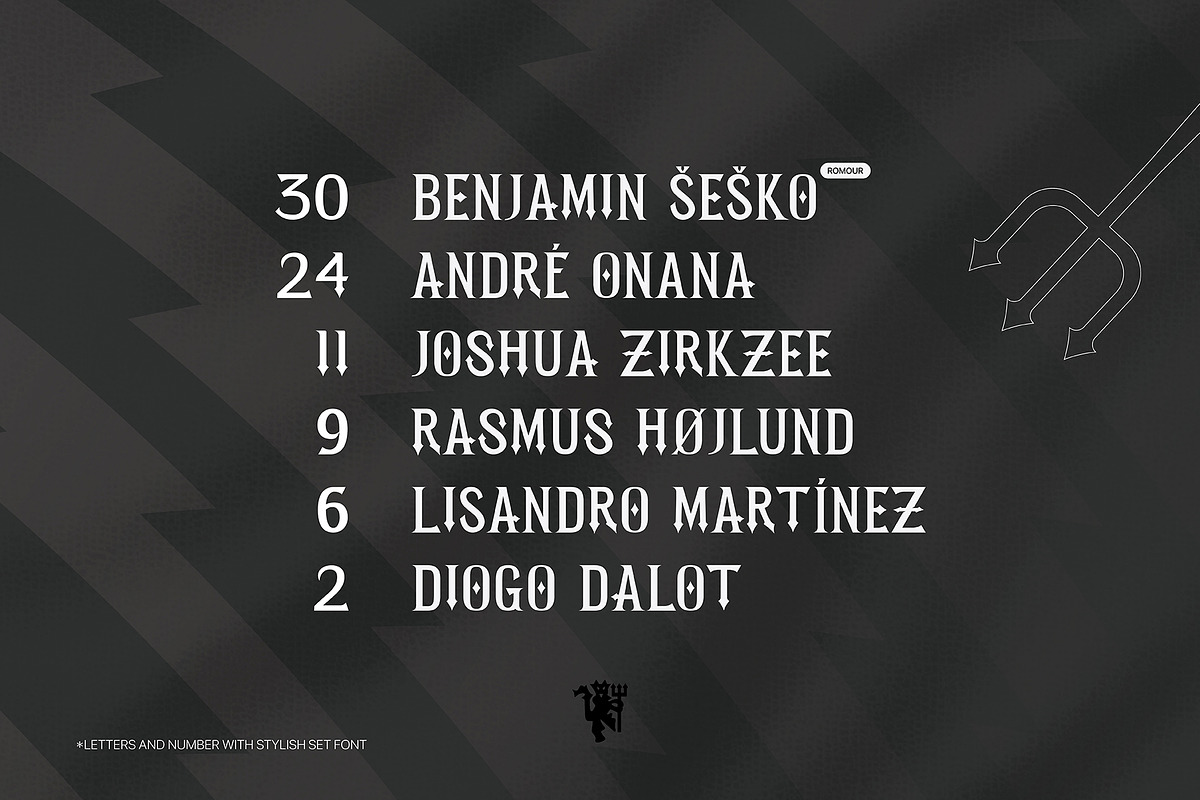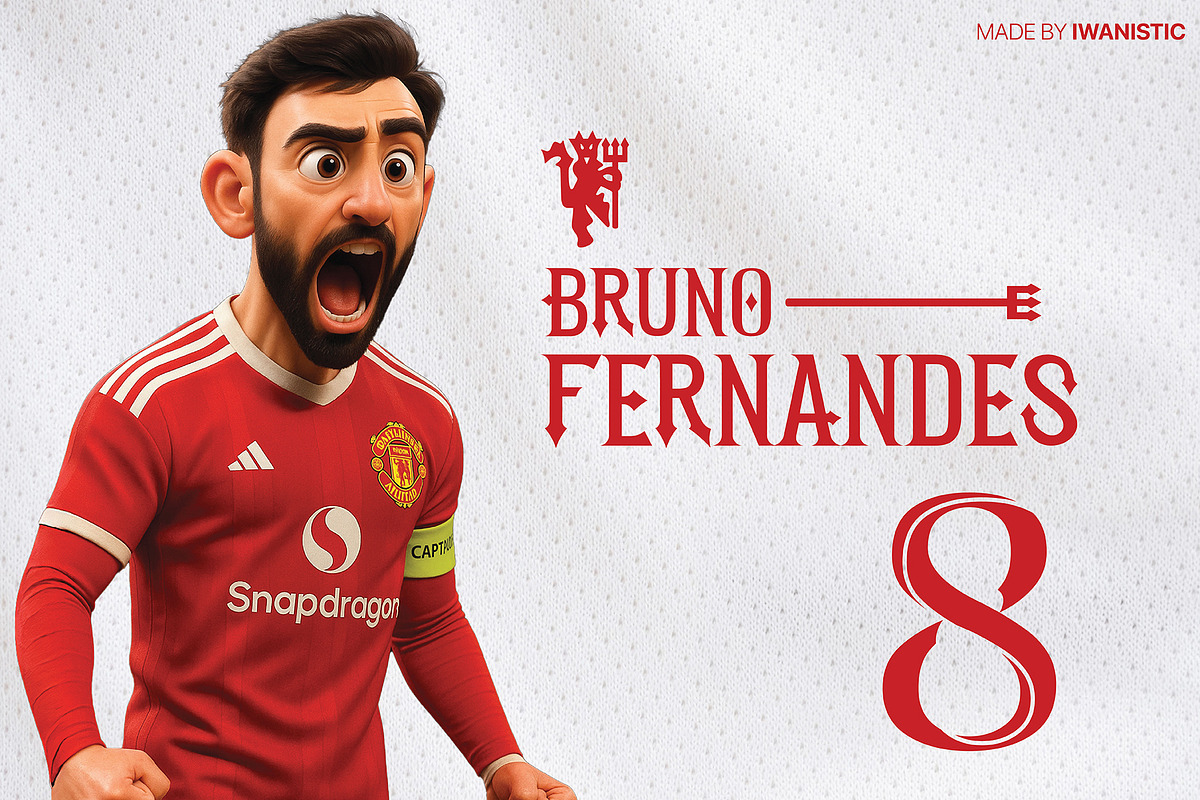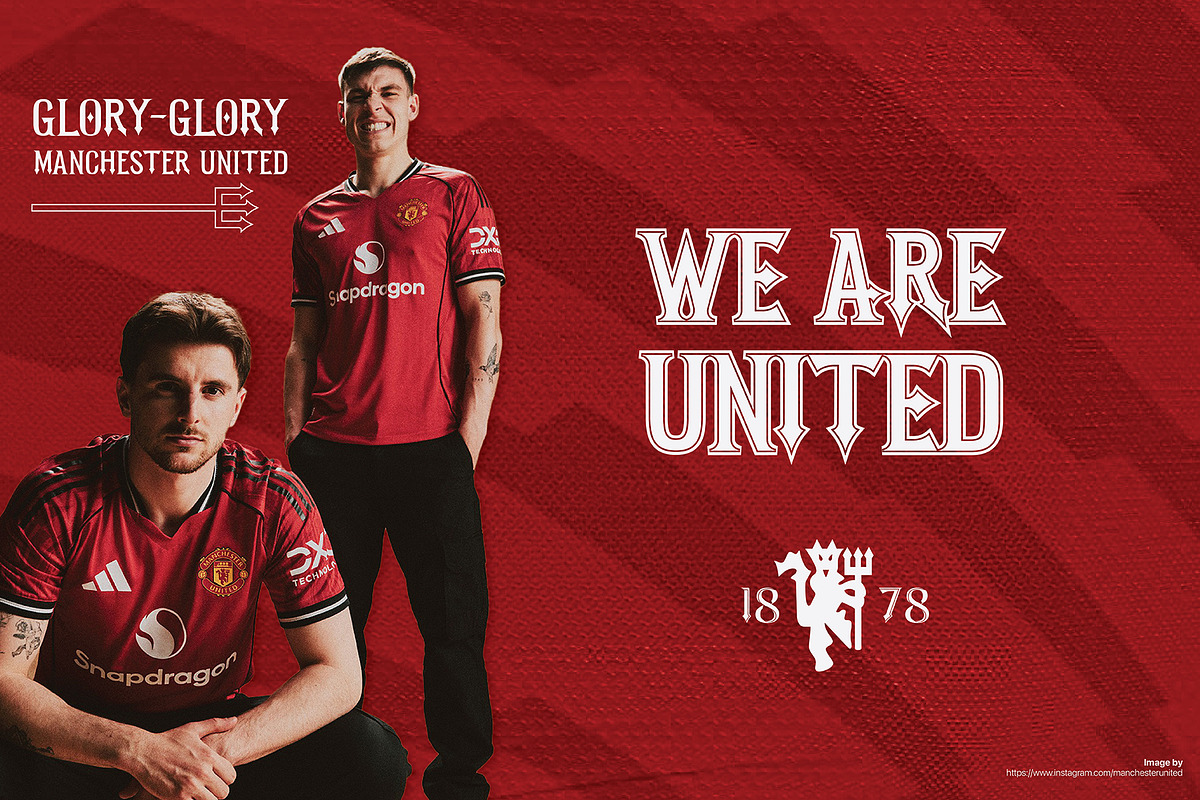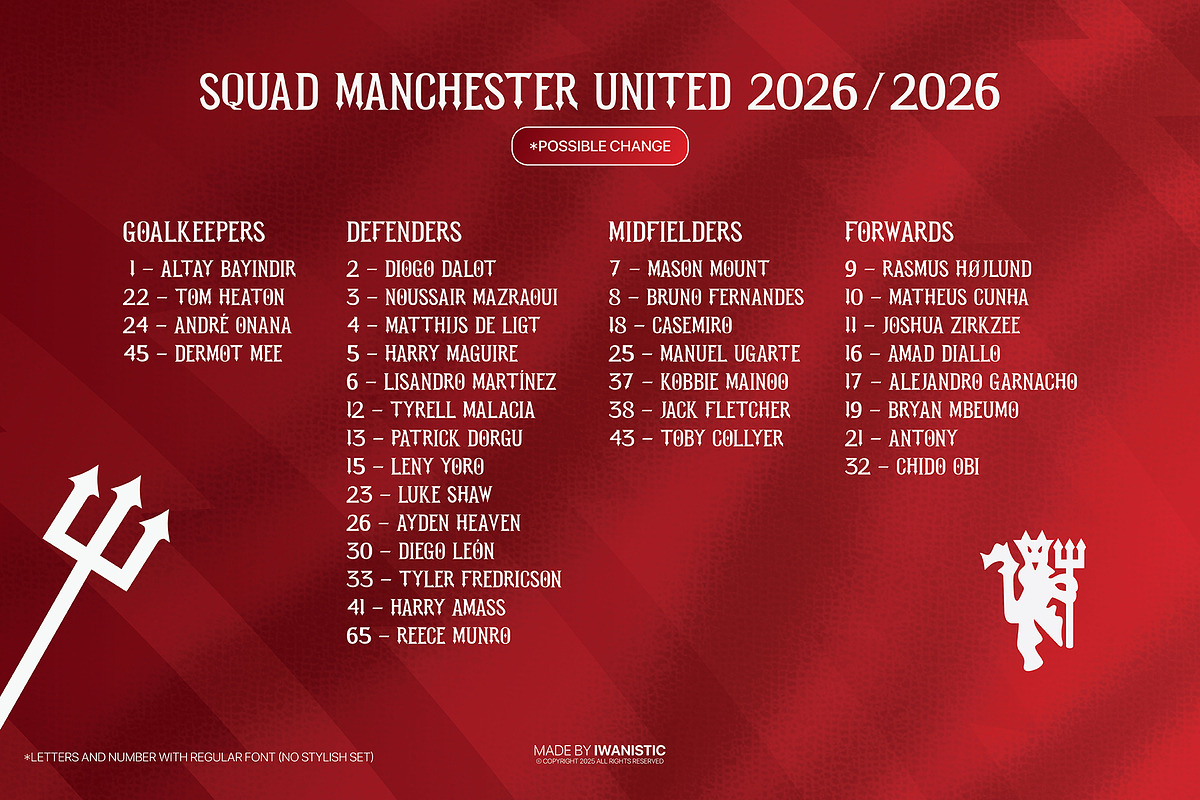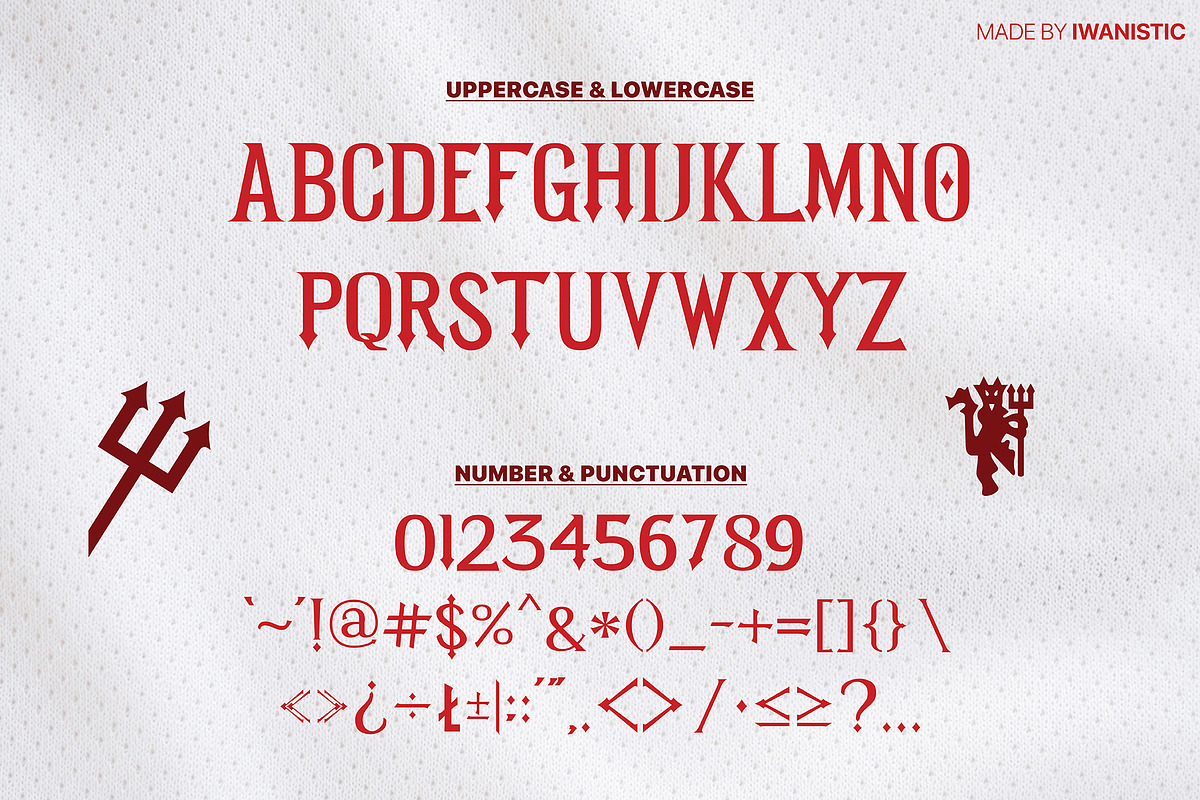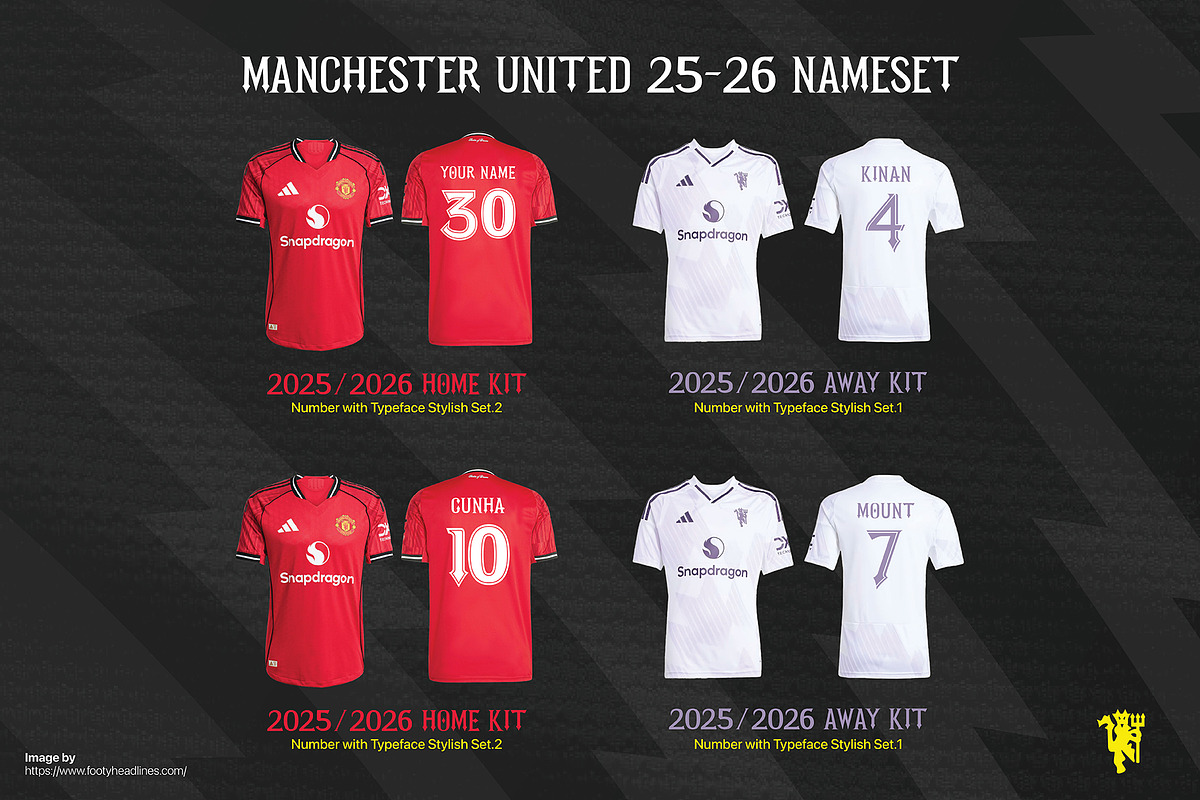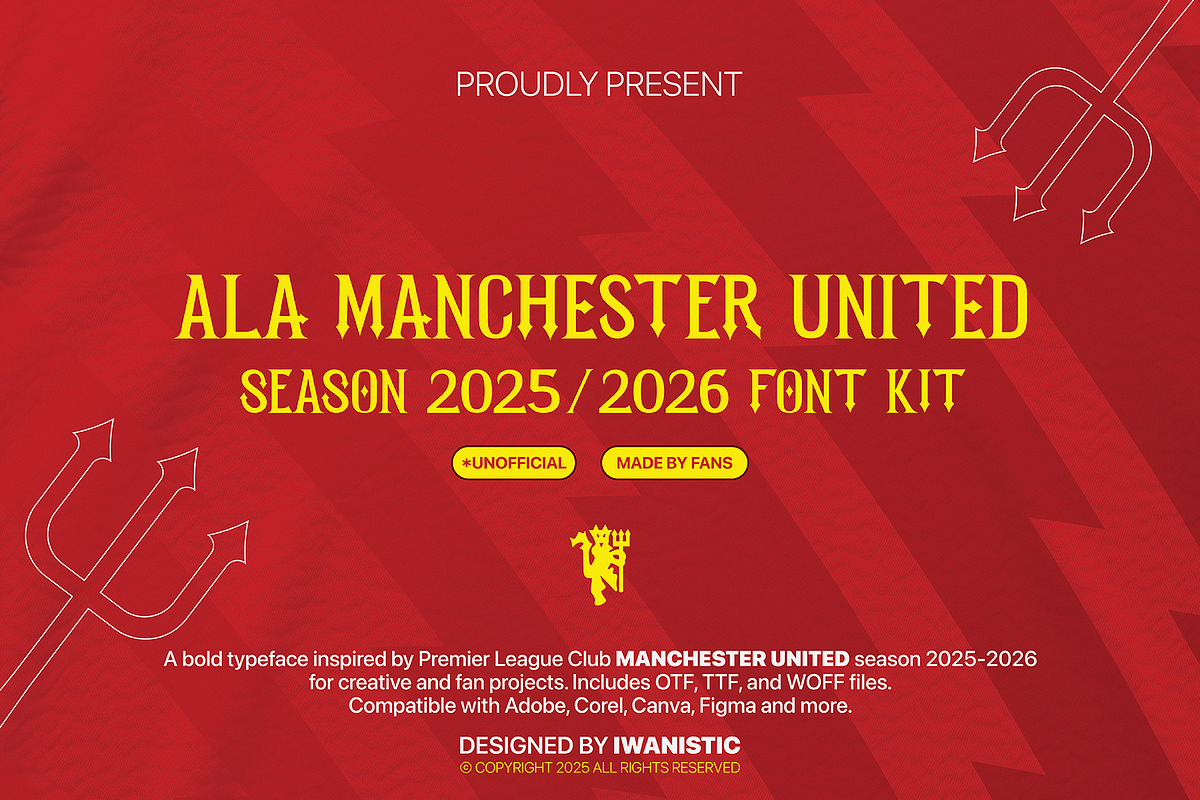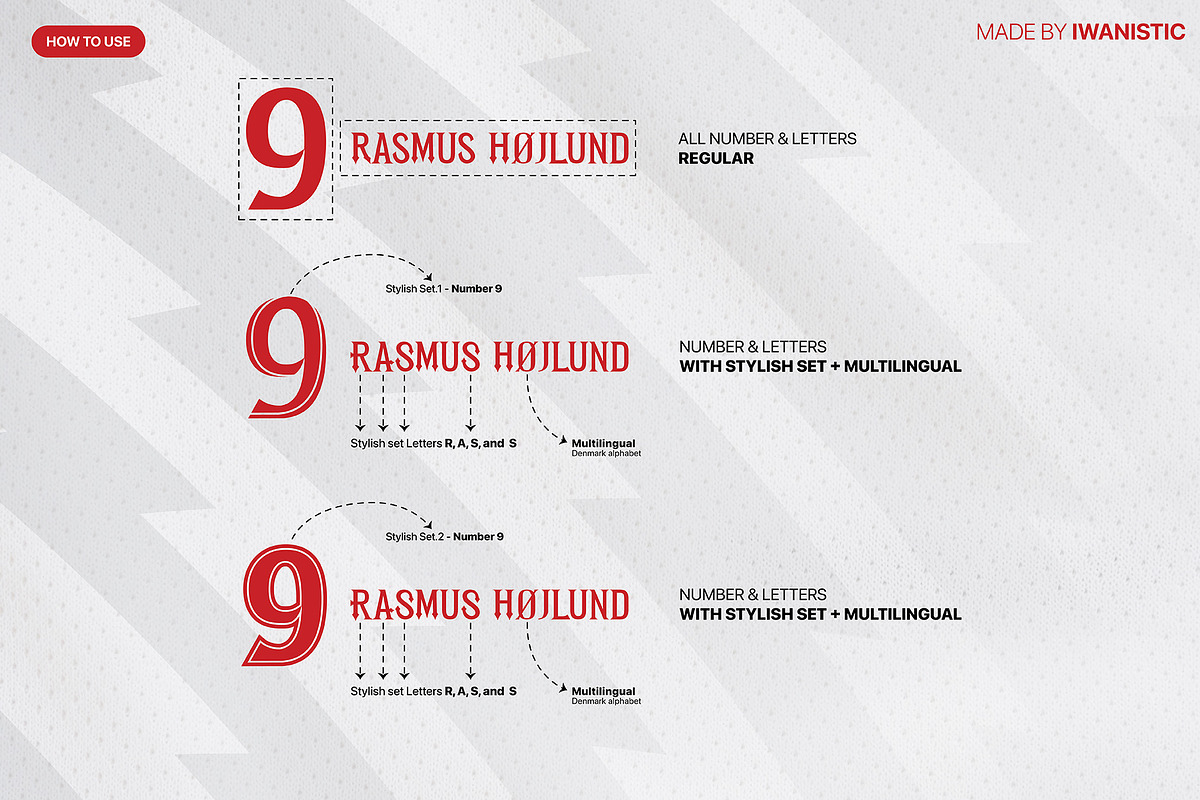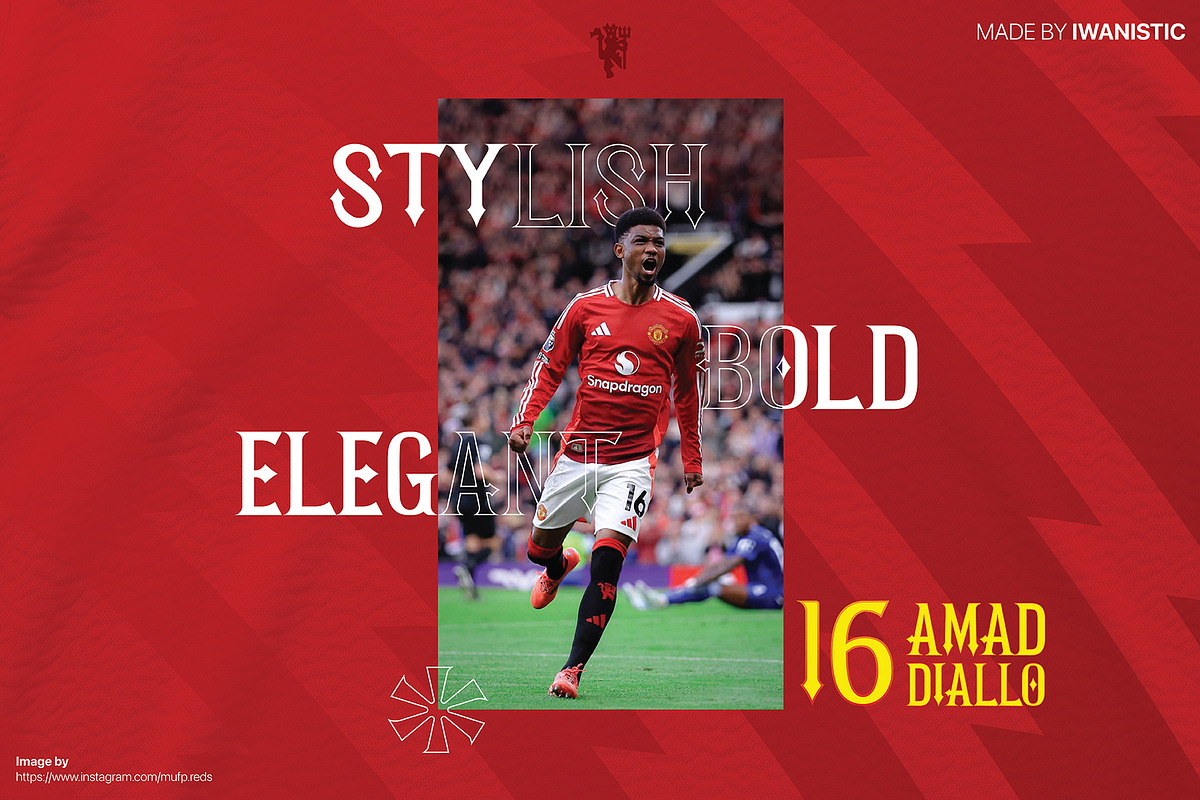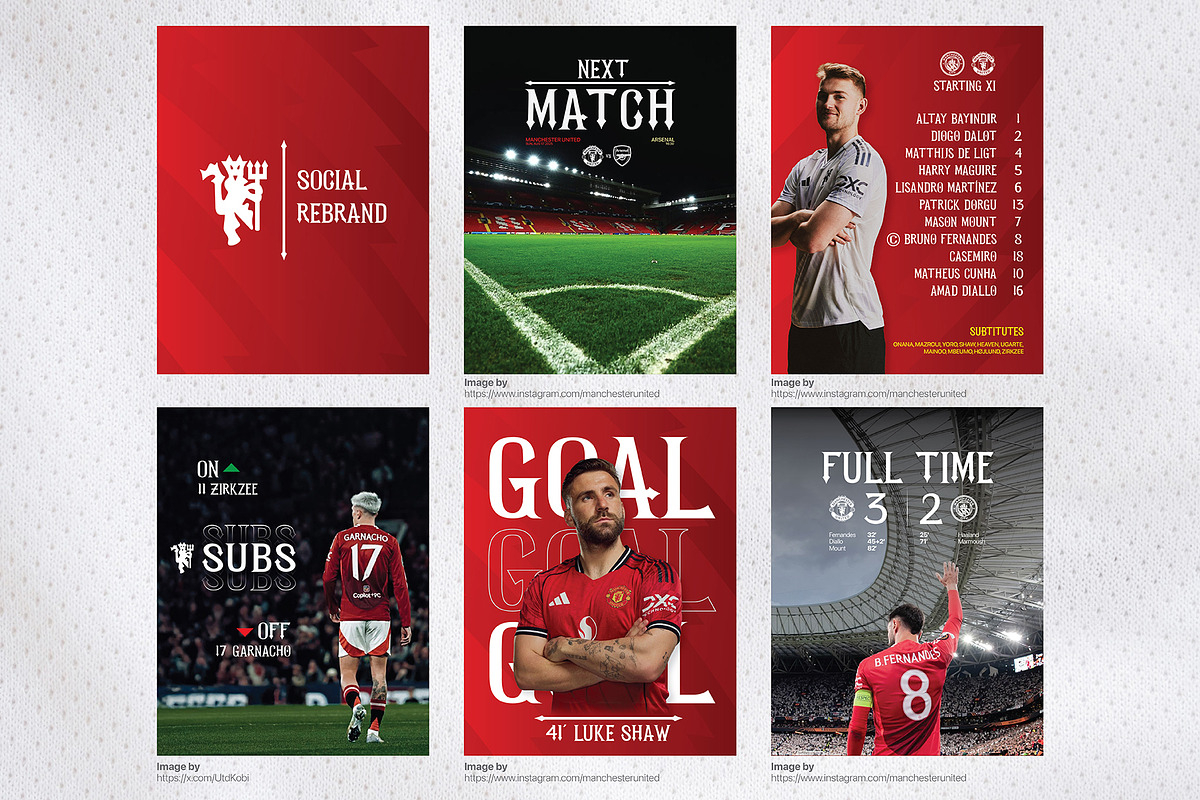
Ala Manchester United 2025 2026 Kit
Font “Ala Manchester United 2025-2026 Kit” is inspired by the ‘Trident’ in the official logo of Manchester United and the typography used on the official Manchester United kit for the 2025/2026 season. This font is stylish, bold, elegant, and unique. Perfect for designers, fans, and the Manchester United fanbase who want to design posters for their favorite team to look even more awesome.
- Font “Ala Manchester United 25-25 Kit” Regular
- A–Z Uppercase & Lowercase, 0-9 Numbers & Punctuation
- Additional unique symbols
- Available in Stylish Set-1 and Set-2 (Alternative Glyphs)